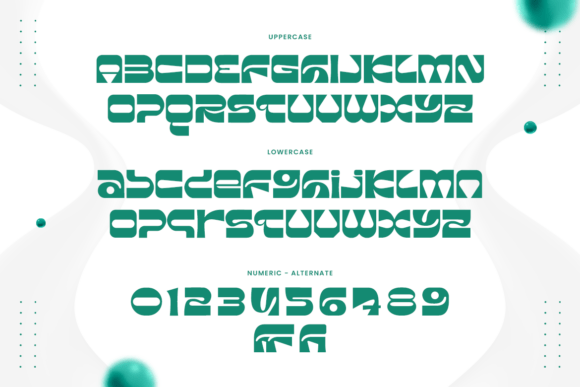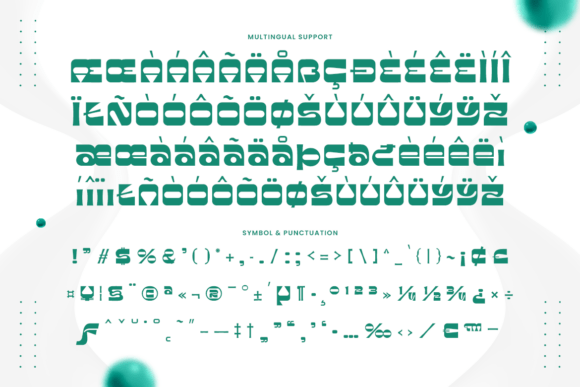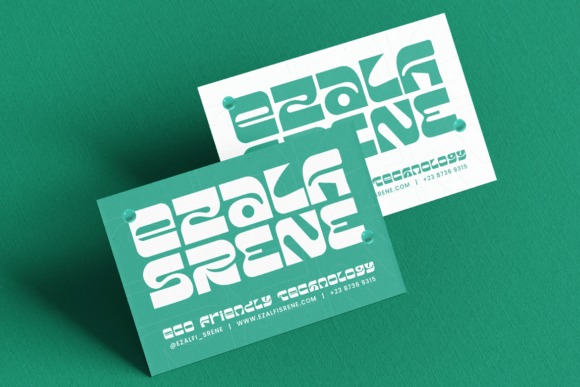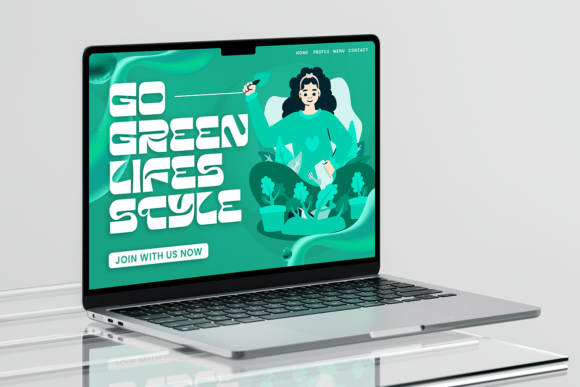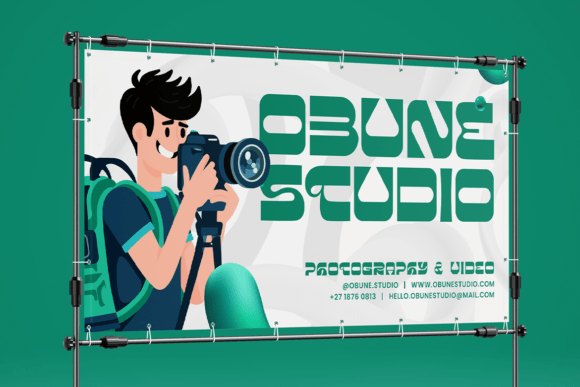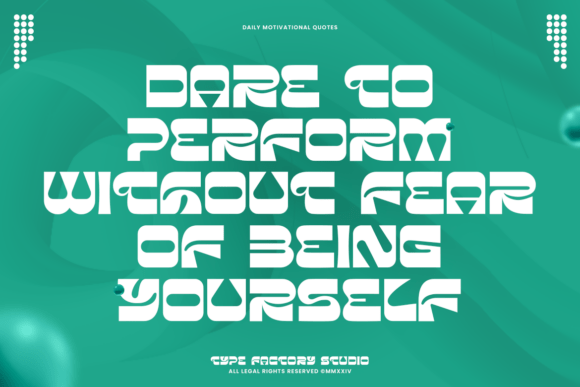
Introducing Asron Font: A Bold and Futuristic Display Typeface
In the world of typography, a new font has emerged that is sure to capture the attention of designers and crafters alike. Meet Asron, a bold fluid display font that combines rounded geometric shapes with flowing cut details to create a dynamic and futuristic appearance. In this article, we’ll delve into the features and benefits of Asron, and explore how it can elevate your designs to the next level.
The Design of Asron
Asron is a masterfully crafted font that brings together solid structures with smooth curves, producing a distinctive visual rhythm that works exceptionally well for large typographic compositions. Each character is built with thick strokes and sculpted negative spaces, giving the font a strong visual presence while maintaining readability in display settings. The stylistic curves and angled terminals add movement, making the typeface suitable for designs that require energetic and expressive typography.
Key Features of Asron
- Bold and Fluid Design: Asron’s bold fluid design makes it perfect for creating eye-catching typographic compositions that demand attention.
- Rounded Geometric Shapes: The font’s rounded geometric shapes give it a friendly and approachable feel, while also conveying a sense of modernity and sophistication.
- Flowing Cut Details: The flowing cut details add a touch of elegance and refinement to the font, making it suitable for high-end designs and luxury brands.
- Multilingual Support: Asron includes multilingual characters, allowing it to adapt to a wide range of creative projects and languages.
- Comprehensive Character Set: The font includes uppercase, lowercase, numerals, punctuation, and multilingual characters, providing everything you need to create stunning typographic compositions.
Use Cases for Asron
Asron is a versatile font that can be used in a variety of design applications, including:
- Branding: Asron’s bold and futuristic design makes it perfect for branding projects that require a strong visual presence.
- Posters: The font’s large character set and flowing cut details make it ideal for creating eye-catching posters and flyers.
- Digital Interfaces: Asron’s clean and geometric design makes it suitable for digital interfaces, such as mobile apps and websites.
- Headlines: The font’s bold and expressive design makes it perfect for headlines and titles that require a strong visual impact.
- Experimental Layouts: Asron’s unique design and flowing cut details make it ideal for experimental layouts and creative typographic compositions.
Why Choose Asron?
With so many fonts available, why choose Asron? Here are just a few reasons:
- Unique Design: Asron’s bold fluid design and flowing cut details make it a truly unique and distinctive font.
- High Readability: Despite its bold design, Asron remains highly readable, even in large typographic compositions.
- Versatility: The font’s comprehensive character set and multilingual support make it suitable for a wide range of creative projects.
In conclusion, Asron is a bold and futuristic display font that is sure to elevate your designs to the next level. With its unique design, high readability, and versatility, Asron is the perfect choice for designers and crafters looking to create stunning typographic compositions. Whether you’re working on a branding project, poster, digital interface, or experimental layout, Asron is the perfect font for you.